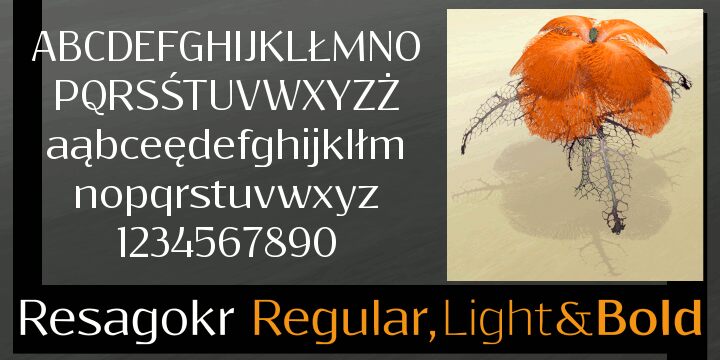
Resagokr by gluk is a free high-contrast sans serif with slender strokes and dramatically varied letter widths. Broad, circular forms sit beside narrow uprights, and several letters carry sharply angled joins or unexpected sweeping legs.
It can create an elegant but unconventional display voice for fashion branding, arts posters, and magazine covers, where its shifting proportions become part of the graphic treatment. The mixture of restrained lines and eccentric silhouettes also suits contemporary cultural events and experimental music projects, linking refined typography with an offbeat editorial edge.
Resagokr